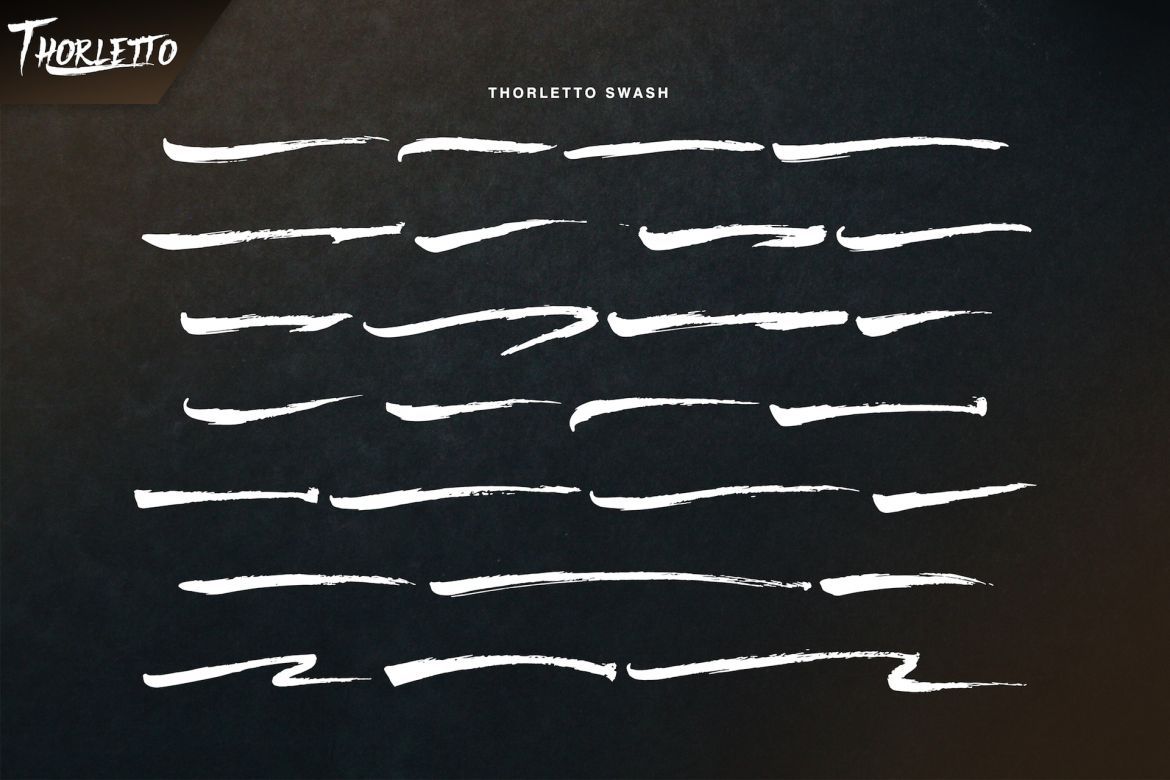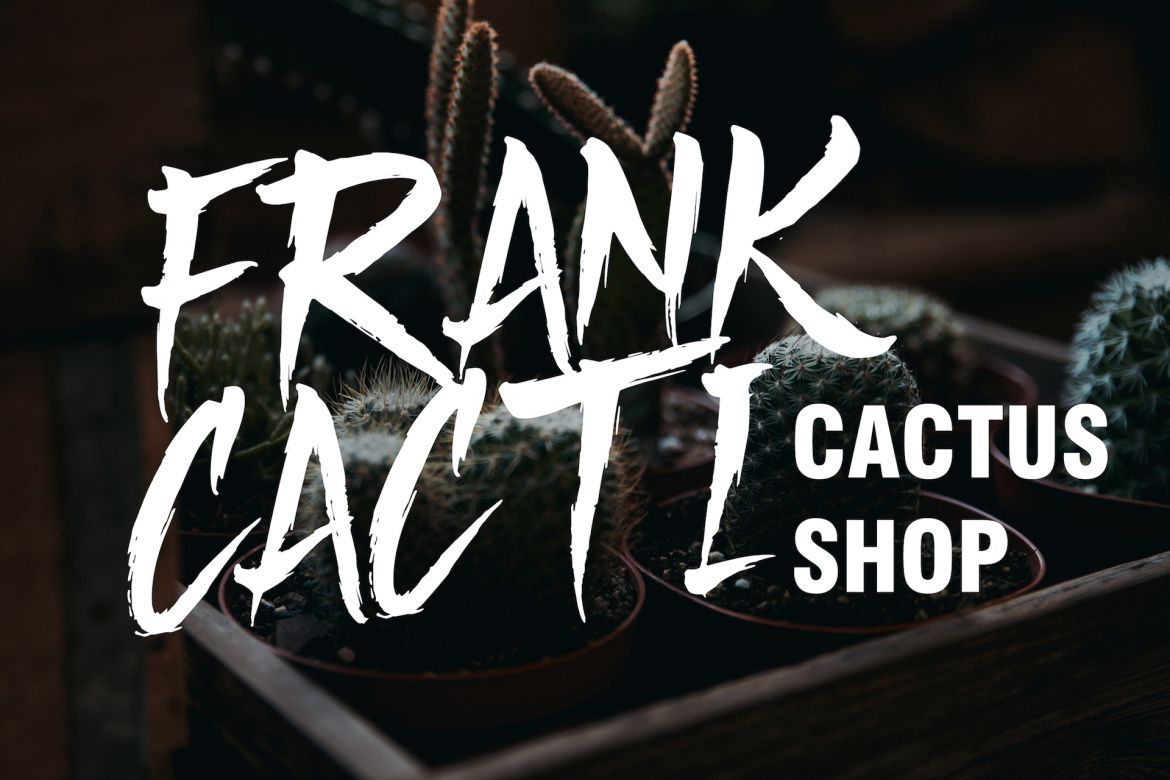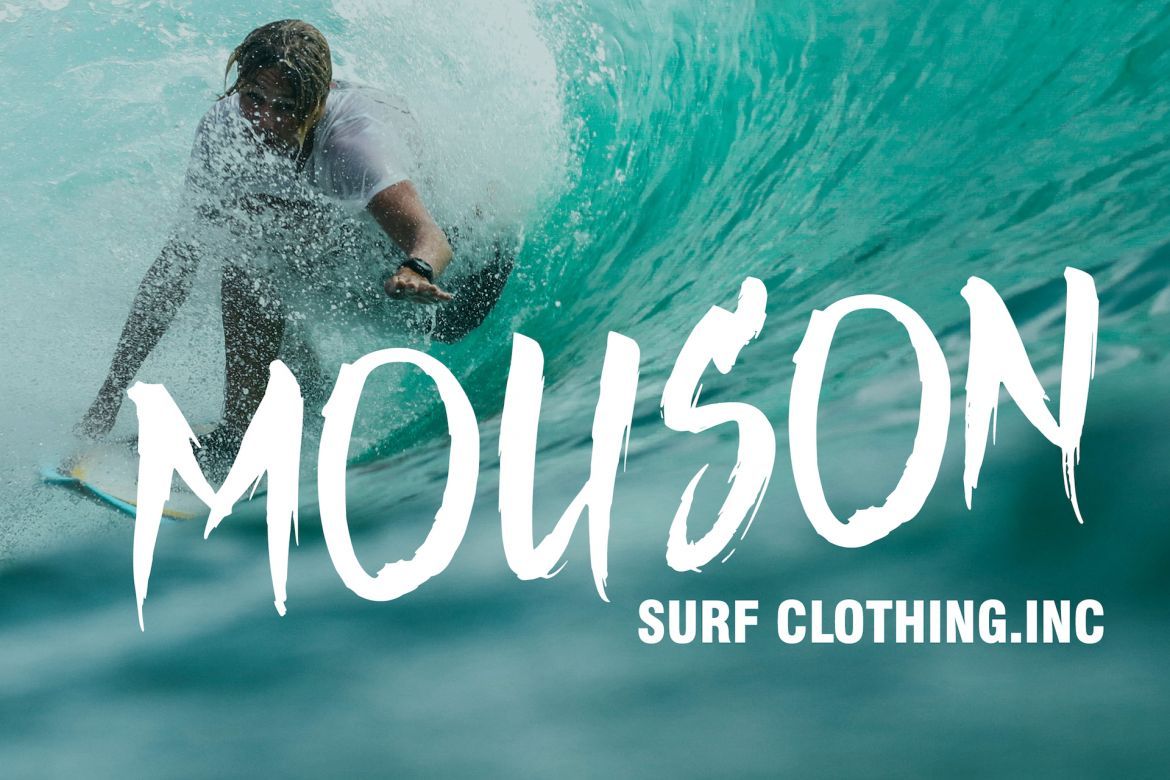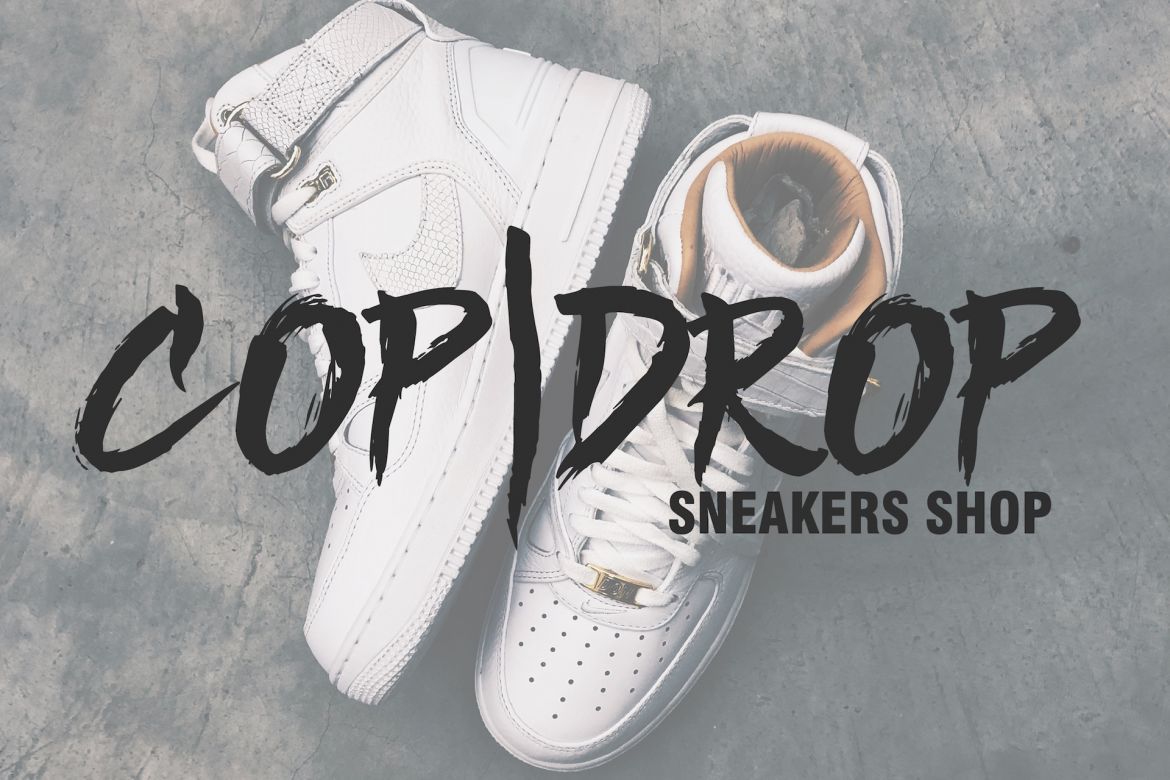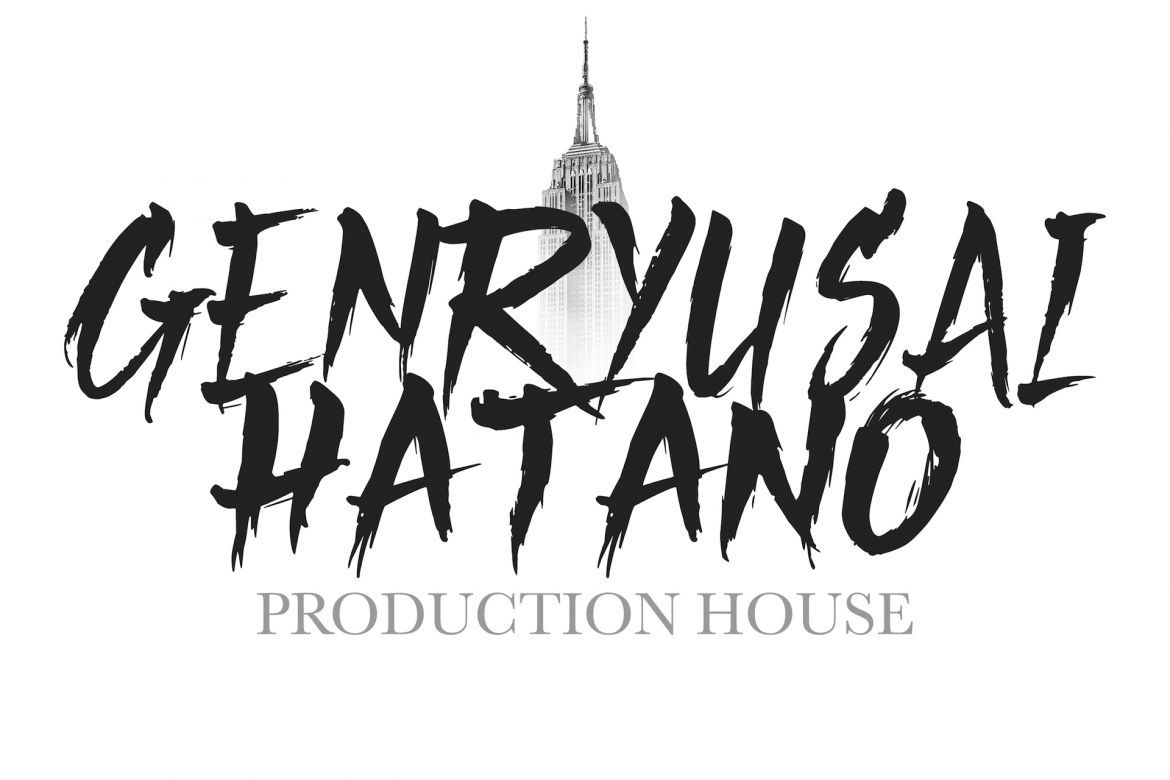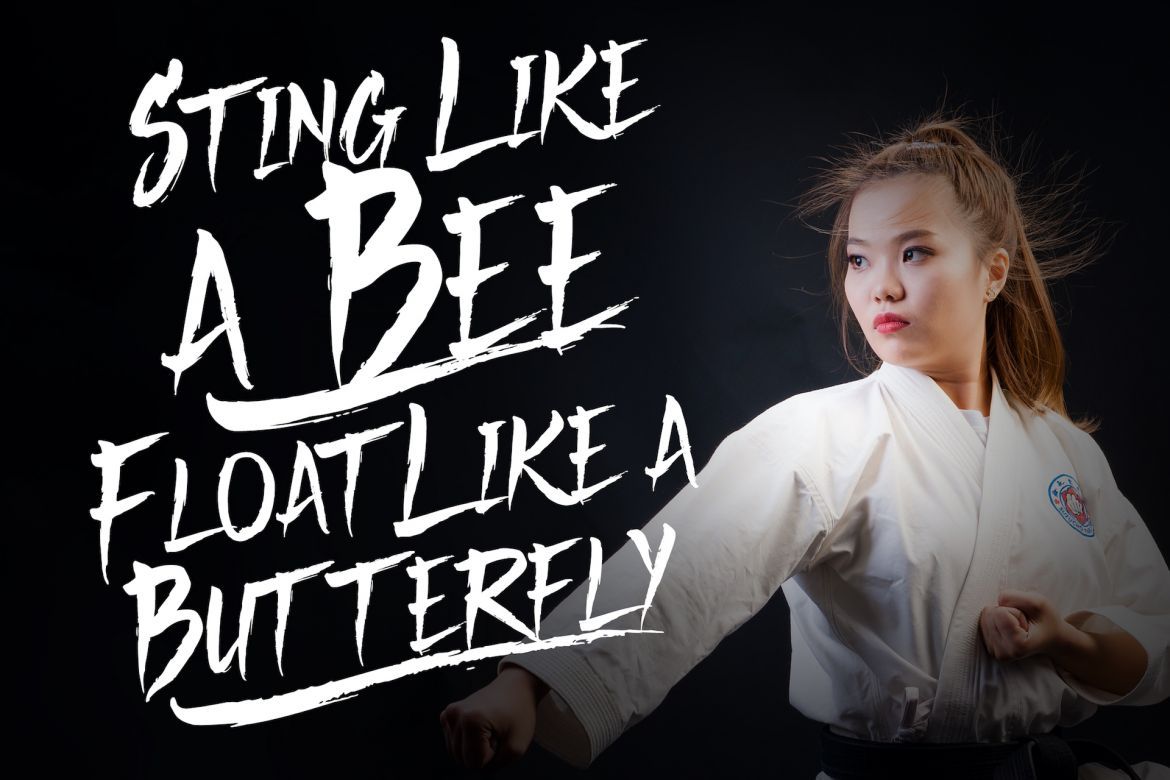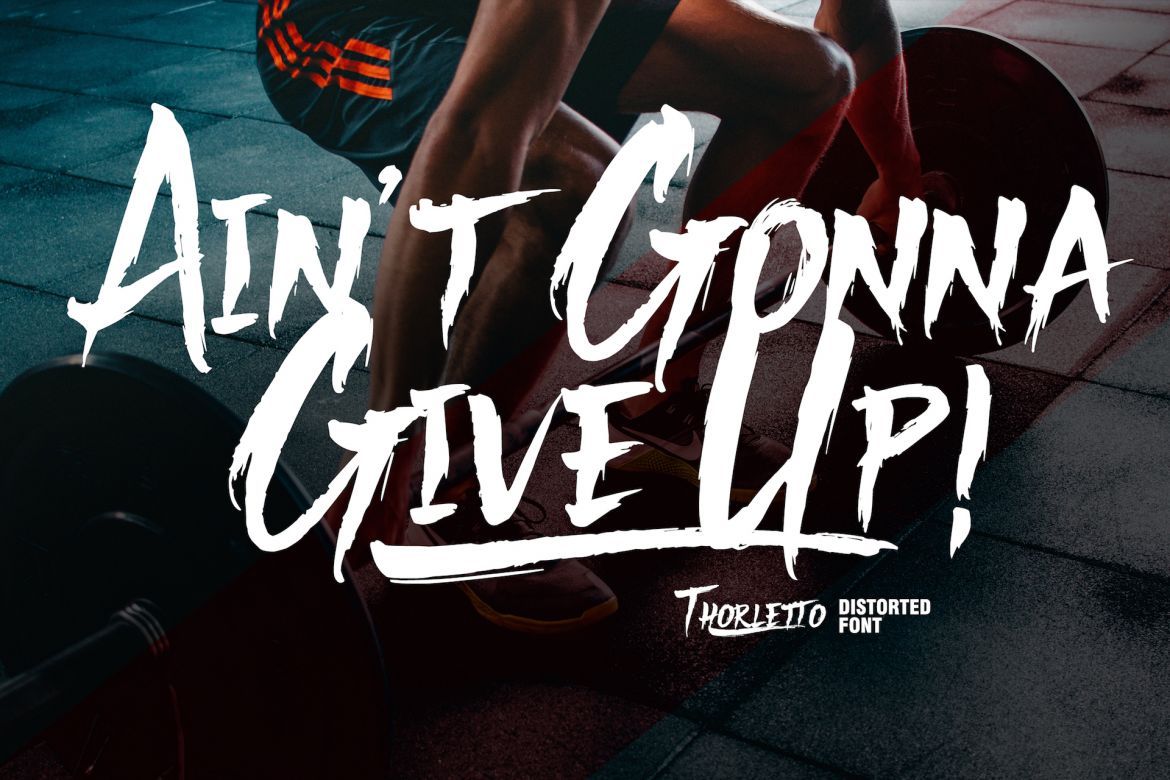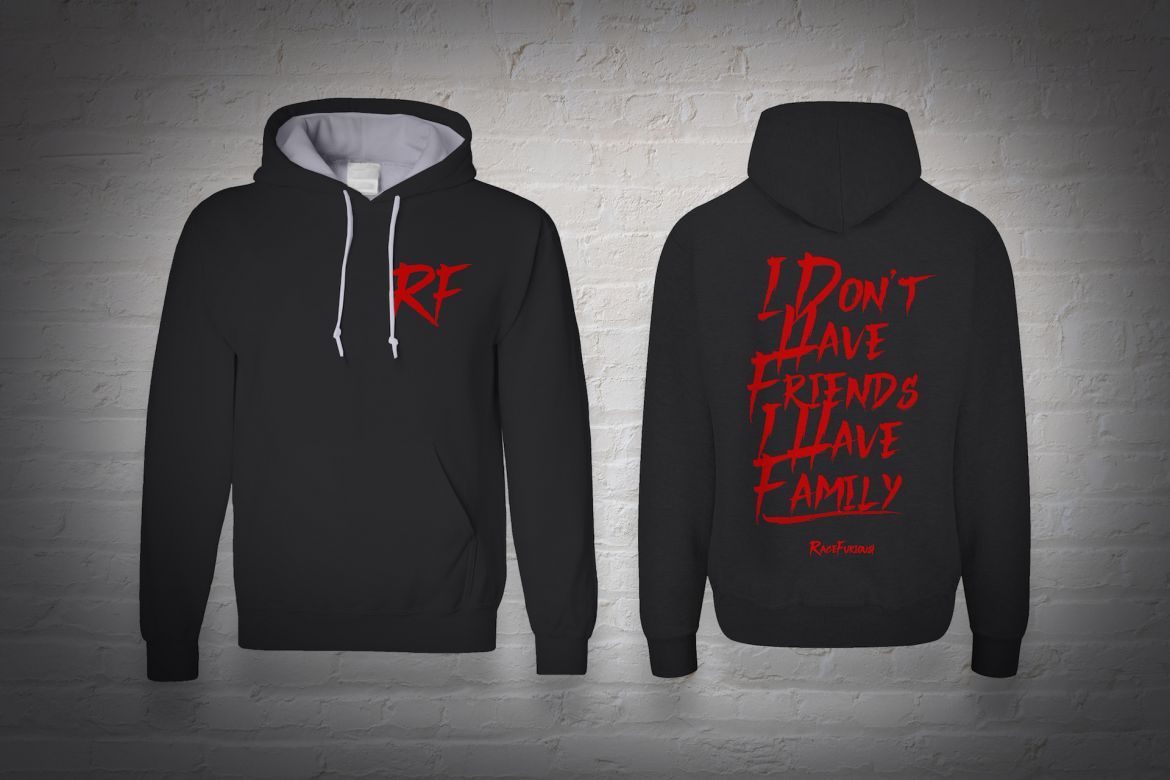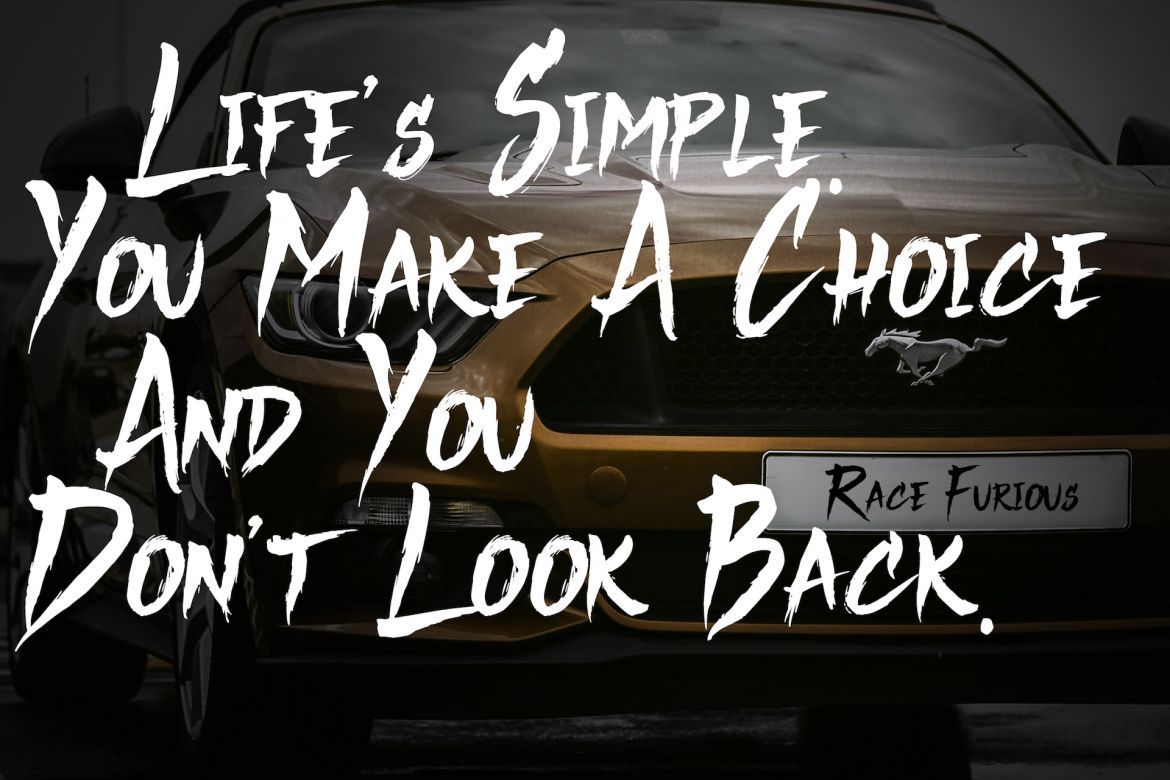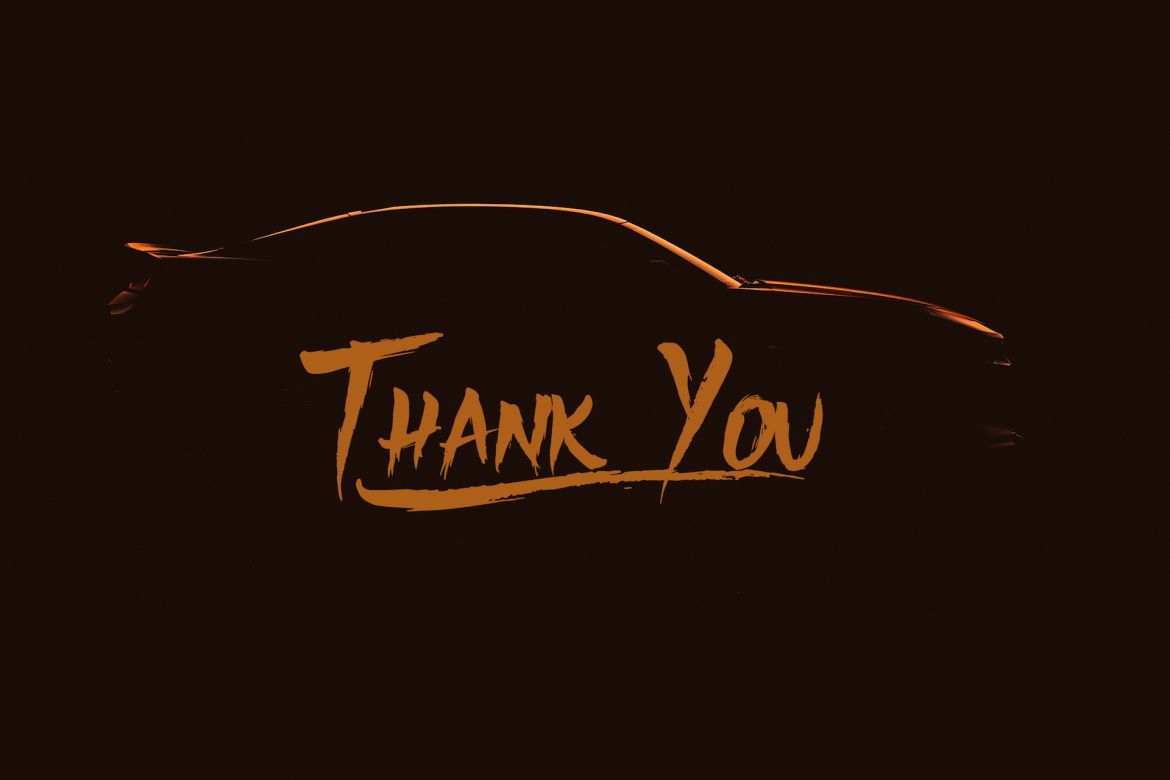
Thorletto Brush Font
Thorletto created with the influence of the background story of a great movie franchise, this font are meant to remind you to not give up, do your best, fight the good fight and fight for the best thing(s) in your life. This unique font characterized by its stroke of brush on every glyph, it made intentionally with a real brush resulting in a unique, bold, and rough looking font. It is suitable for various kind of design like clothing, poster, quote, branding, logo, packaging, greeting card, invitation, and many more.
• style in this font include: regular &italic
• support multilingual; ä ö ü ä ö ü ¿ ¡